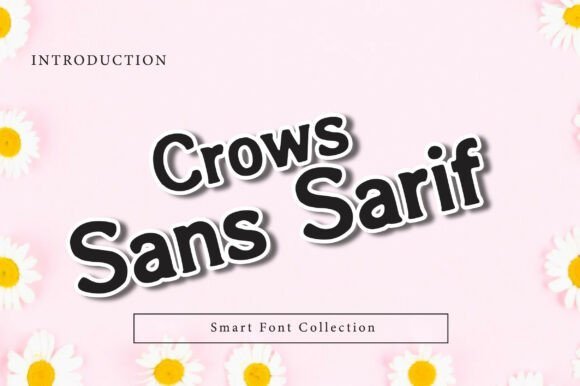
Introduction to Crows Sans Sarif Font
Crows Sans Sarif is a clean, modern, and friendly sans serif typeface designed with soft curves and bold readability.
With its smooth, rounded letterforms and minimalist structure, this font delivers a fresh and approachable look that works perfectly for both branding and everyday design needs Designed to be simple yet stylish, Crows Sans Sarif is ideal for modern logos, product packaging, social media graphics, poster headlines, web design, and professional branding projects.
Why Choose Crows Sans Sarif Font?
Crows Sans Sarif Font offers exceptional quality and versatility, making it a valuable addition to your design toolkit. Whether you’re creating for personal projects or commercial use, Crows Sans Sarif Font delivers professional results.